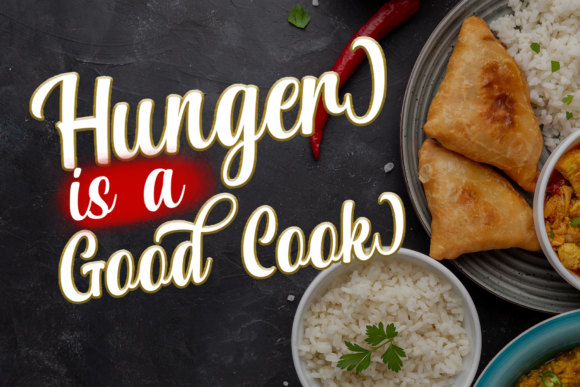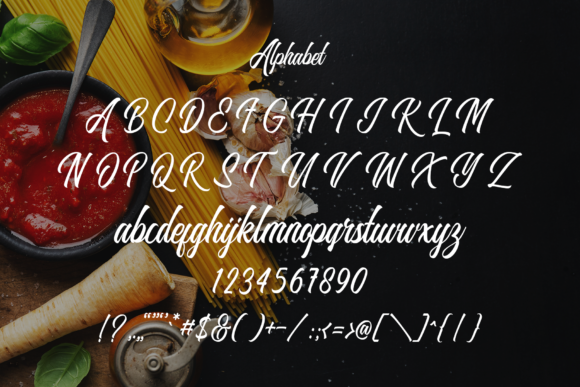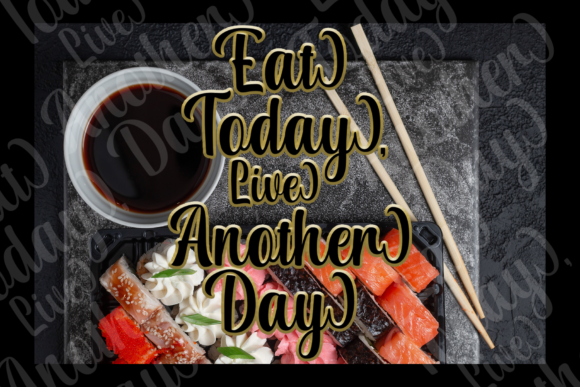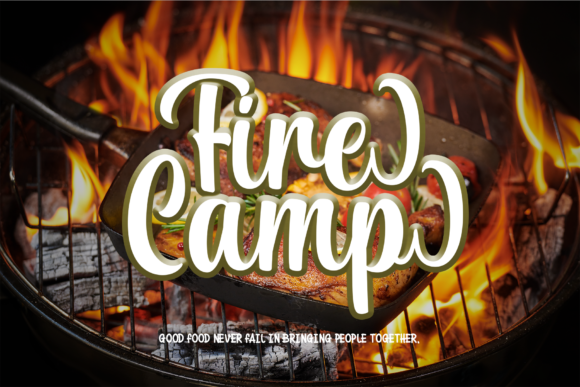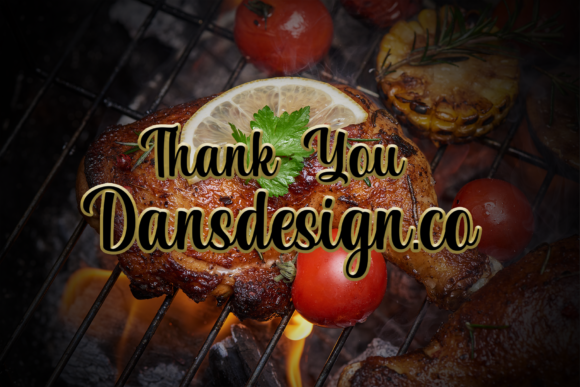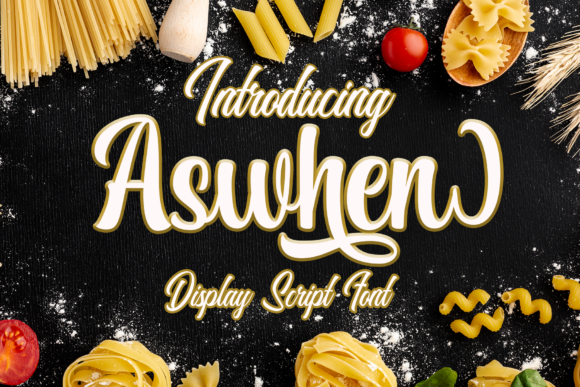
Aswhen Font: Elevate Your Designs with a Whimsical and Genuine Display Font
In the world of design, fonts play a crucial role in conveying the tone and personality of a project. Whether you’re working on a logo, branding materials, or digital content, the right font can make all the difference. If you’re looking for a font that can add a touch of whimsy and authenticity to your designs, look no further than Aswhen Font. In this article, we’ll explore the features and benefits of Aswhen Font, and why it’s a must-have for designers and crafters.
What is Aswhen Font?
Aswhen Font is a display font that boasts a unique blend of playfulness and sophistication. Expertly designed to make your creations stand out, this font is perfect for projects that require a dash of personality and flair. With its whimsical and genuine feel, Aswhen Font is ideal for designers and crafters who want to add a touch of magic to their work.
Key Features of Aswhen Font
- Whimsical and genuine design: Aswhen Font features a one-of-a-kind design that exudes playfulness and authenticity.
- Display font: This font is specifically designed for display purposes, making it perfect for headlines, titles, and other prominent text elements.
- Versatile: Aswhen Font can be used on a variety of projects, from logos and branding materials to digital content and crafts.
- Easy to read: Despite its whimsical design, Aswhen Font is easy to read, making it suitable for use in a range of applications.
Benefits of Using Aswhen Font
So, why should you choose Aswhen Font for your next project? Here are just a few benefits of using this amazing font:
- Adds personality to your designs: Aswhen Font is the perfect way to inject some personality into your designs and make them stand out from the crowd.
- Perfect for creative projects: Whether you’re working on a craft project, designing a logo, or creating digital content, Aswhen Font is a great choice.
- High-quality design: Aswhen Font is expertly designed to provide a high-quality look that will elevate your designs.
How to Use Aswhen Font
Using Aswhen Font is easy. Here are a few tips to get you started:
- Pair it with other fonts: Aswhen Font pairs well with a range of other fonts, so feel free to experiment with different combinations.
- Use it for headlines and titles: Aswhen Font is perfect for headlines and titles, where its whimsical design can really shine.
- Experiment with different colors: Aswhen Font looks great in a range of colors, so don’t be afraid to try out different options.
- Aswhen Font is a whimsical and genuine display font.
- It’s perfect for designers and crafters who want to add personality to their designs.
- Aswhen Font is versatile and can be used on a range of projects.
- It’s easy to read and use, making it accessible to designers and crafters of all levels.